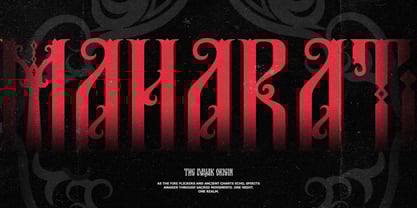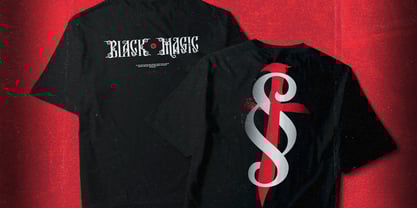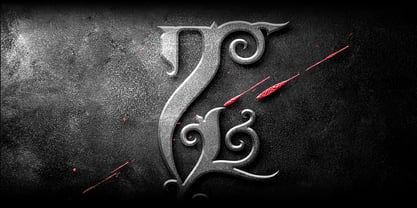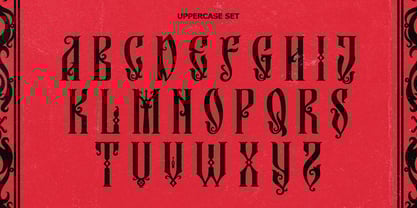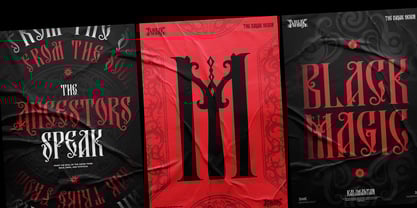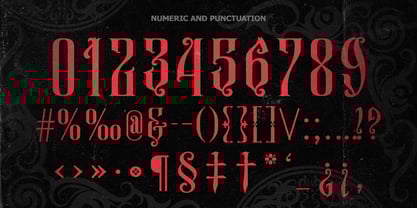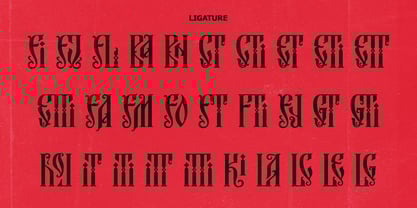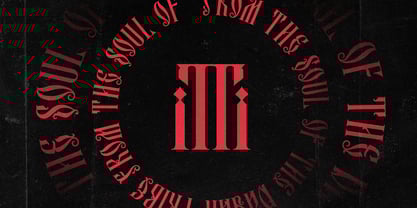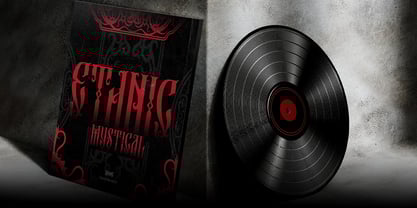
Rohang PRO
by Inviline
The Rohang PRO Font Family was designed by Virgiawan Listanto and published by Inviline. Rohang PRO contains 1 styles. More about this family
Rohang is a ritualistic typeface forged in the intersection of ancient tradition and gothic mystery. With bold strokes, sharp serifs, and swirling tribal details, this font channels a ceremonial energy that feels both sacred and sinister. Inspired by ritual objects, sacred scripts, and dark folklore, Rohang is perfect for horror posters, band logos, tattoo art, fantasy titles, and spiritual branding. Its strong presence and ornamental depth evoke a sense of ancient power and mystical elegance. Designed to stand out, Rohang adds a dark cultural soul to every design it haunts.
Designers: Virgiawan Listanto
Current Foundry: Inviline
Rohang PRO